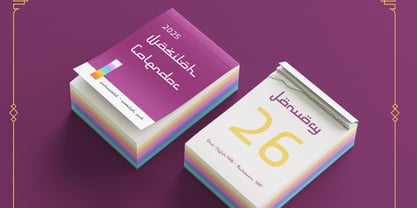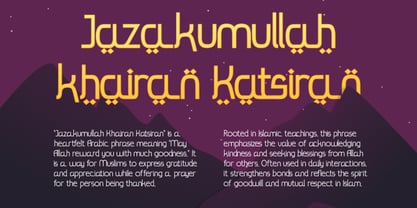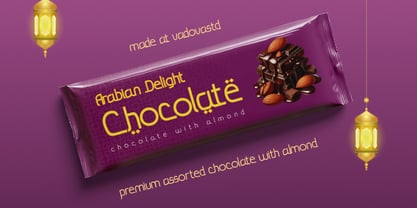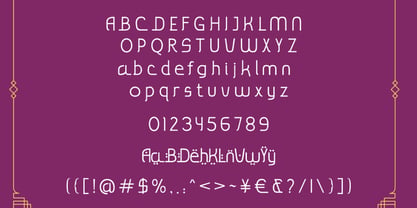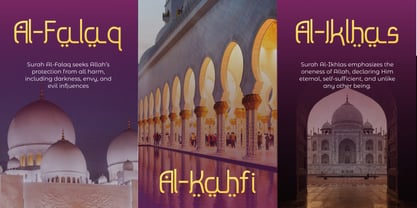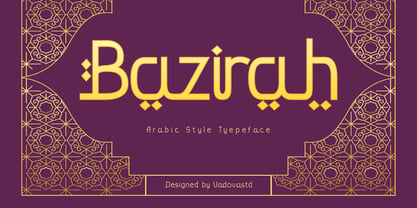
Bazirah
Bazirah is an Arabic-inspired display typeface featuring elegant curves, geometric balance, and cultural charm. Designed with ornamental flourishes and traditional diamond motifs, this font captures the essence of Middle Eastern visual aesthetics. It includes uppercase and lowercase letters, numerals, punctuation, and accented characters for multi-language support. Ideal for branding, packaging, editorial titles, and festive Islamic projects such as Ramadan promotions or Eid greeting cards, Bazirah gives your designs a refined, sacred, and classic look. With its fusion of legibility and decoration, it suits modern designs seeking cultural depth and stylistic sophistication.